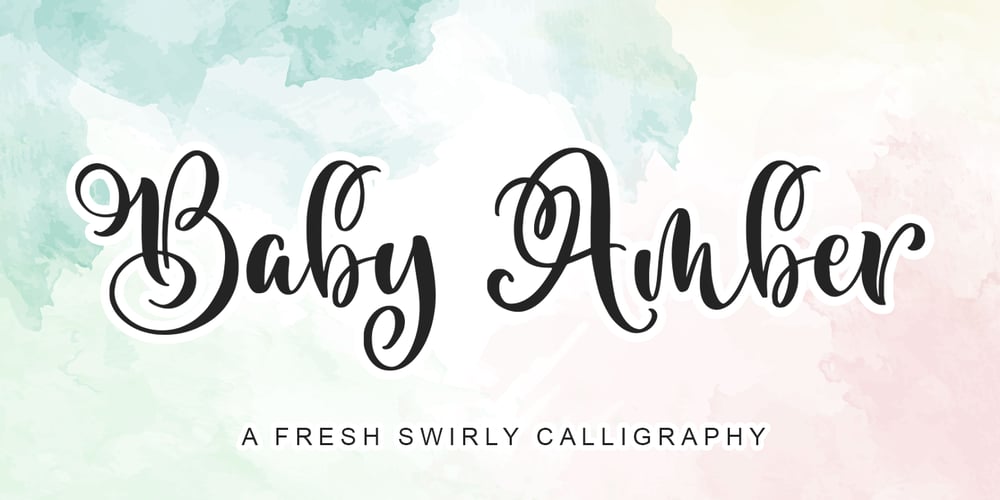
Baby Amber Font Family was designed by Abo Daniel and published by Abo Daniel. Baby Amber contains 1 styles and family package options. Baby Amber is a fresh swirly calligraphy font. This font is great for any design like embroidery, bags, branding, packaging, cards, home decorations, social media, wedding cards, fashion, and moreFeatures : Ligatures Multi-lingual Support Numerals and Punctuation (OpenType Standard) PUA encoded Thank you for visiting and purchasing my font.I hope you love it.regards,Abo Daniel Studio